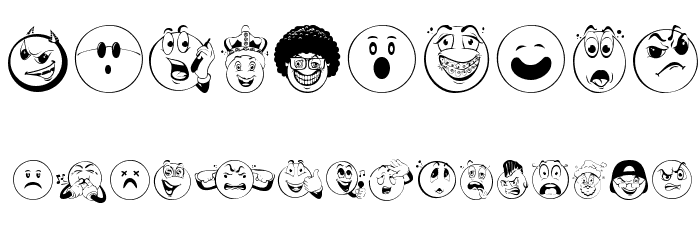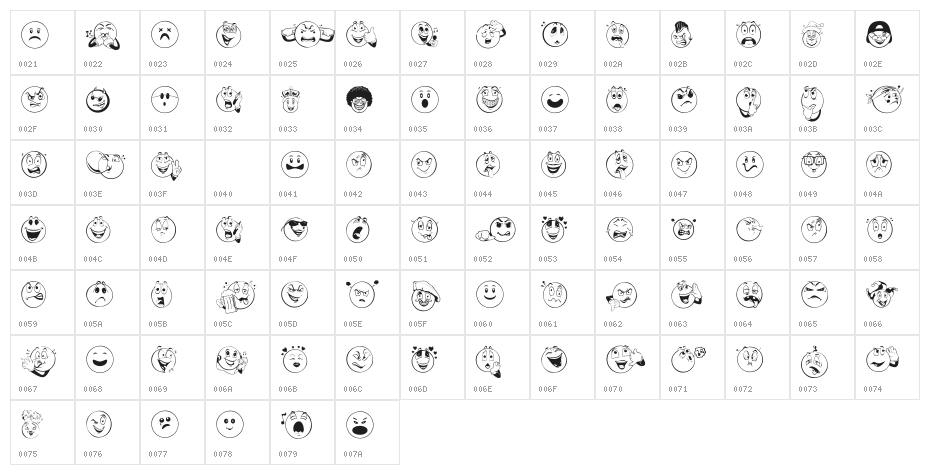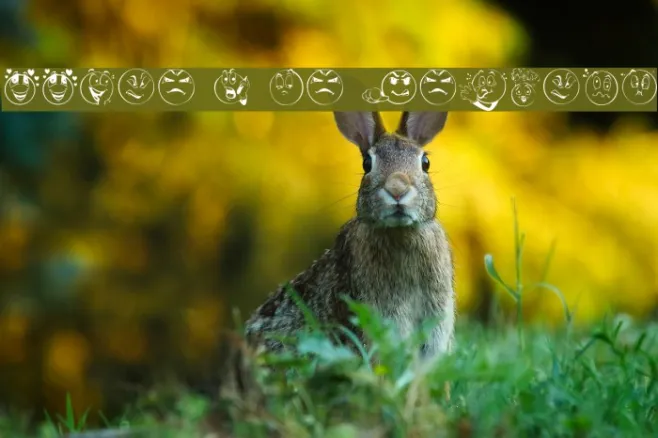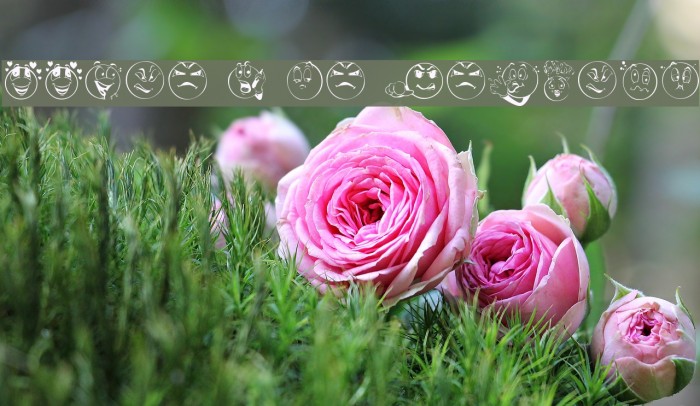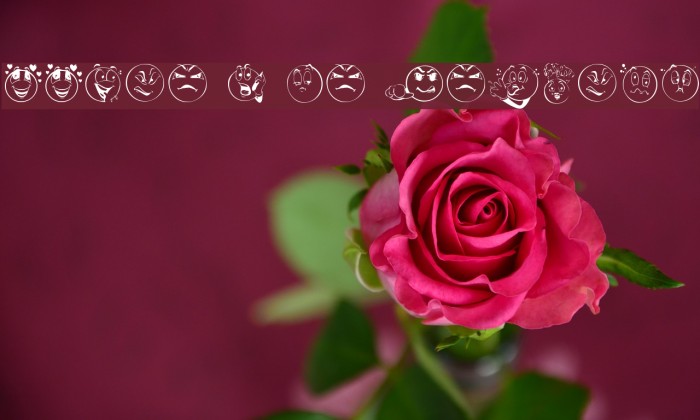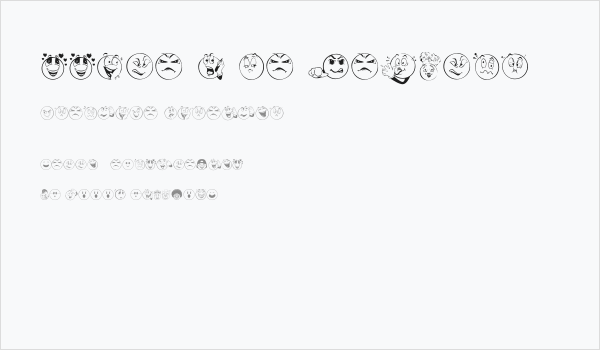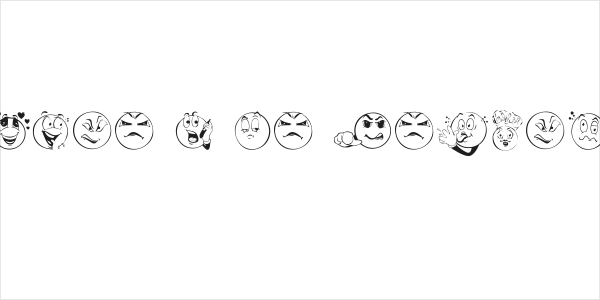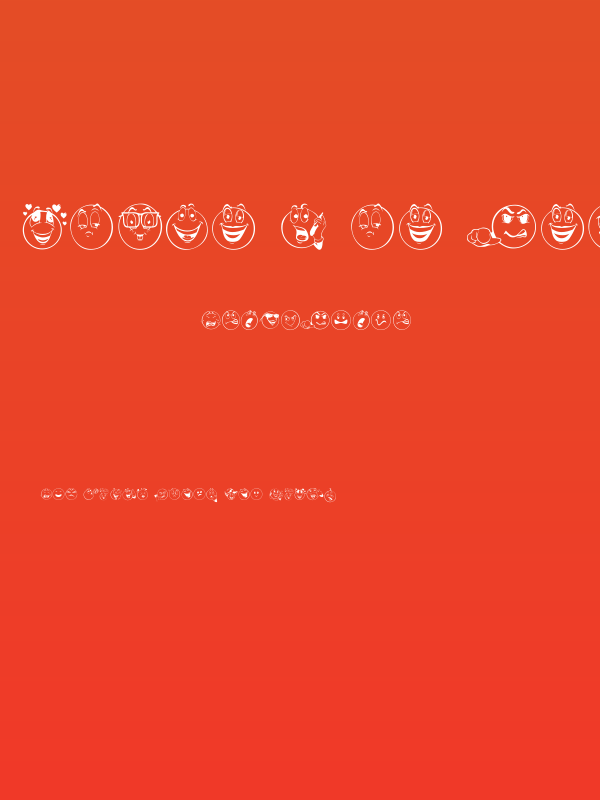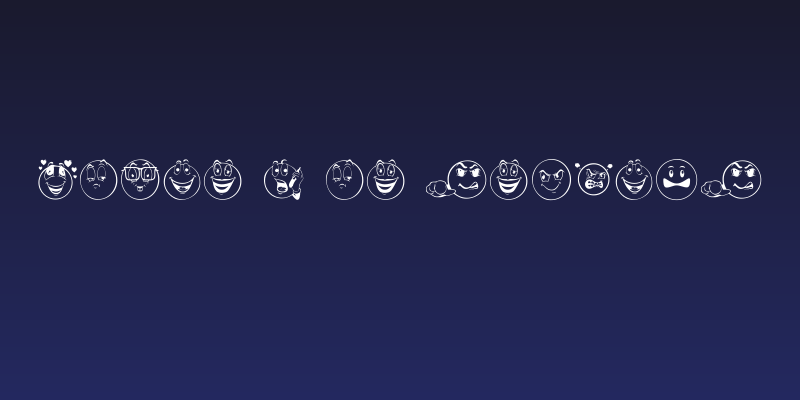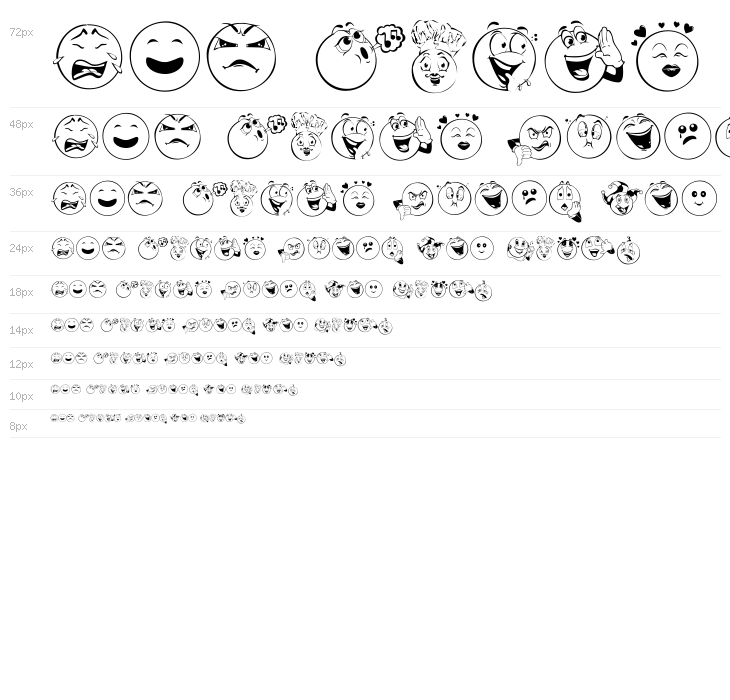
Smile 2 Me Regular Font
Smile 2 Me Regular Description
A playful and expressive collection of cartoon-style smiley faces, each representing a different emotion or character, drawn with bold outlines and varying facial features. The glyphs are circular and highly decorative, focusing on visual storytelling rather than traditional letterforms.
Evad - Dave Huizing
| Overall Style | Playful, Cartoonish, Decorative |
| Use Case | Logos, Headlines, Posters, Themed graphics |
| Proposed Projects | ChildrenΓ’β¬β’s books, party invitations, comic strips, playful branding, educational materials, emoji-themed designs. |